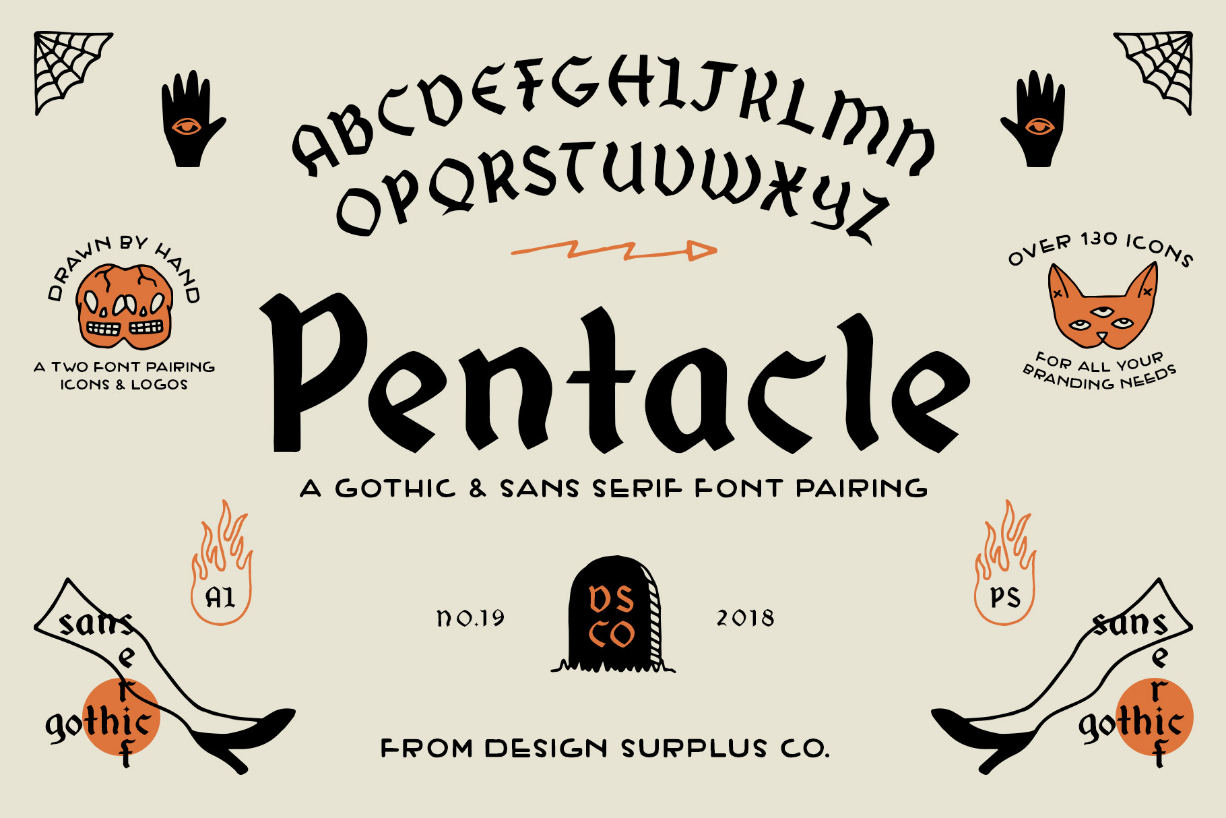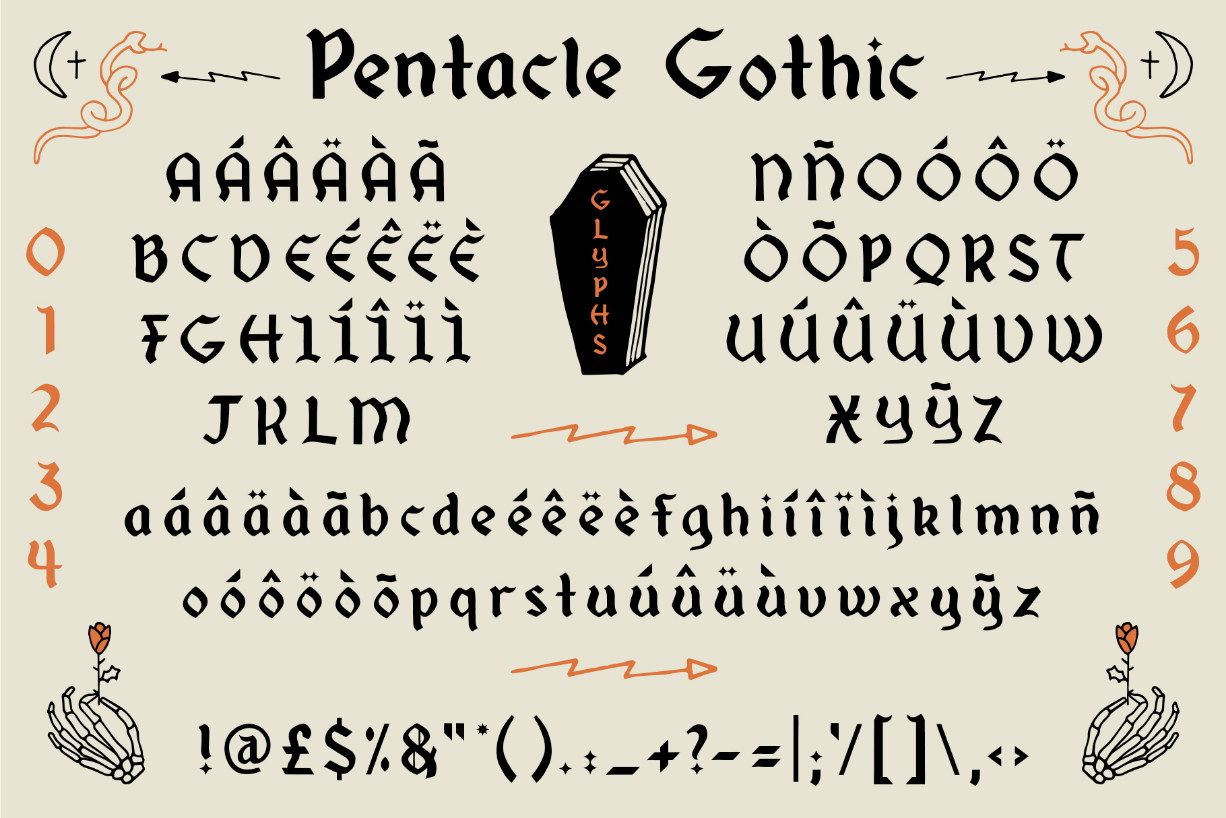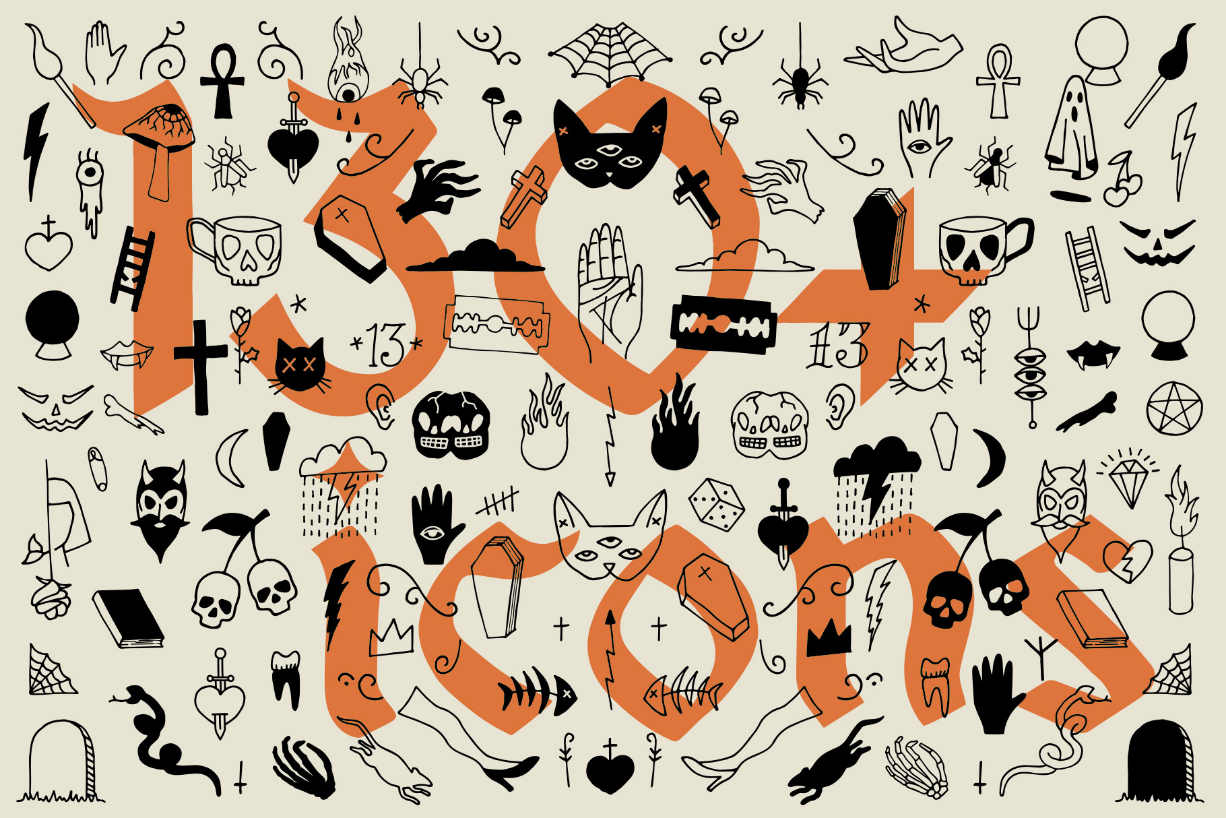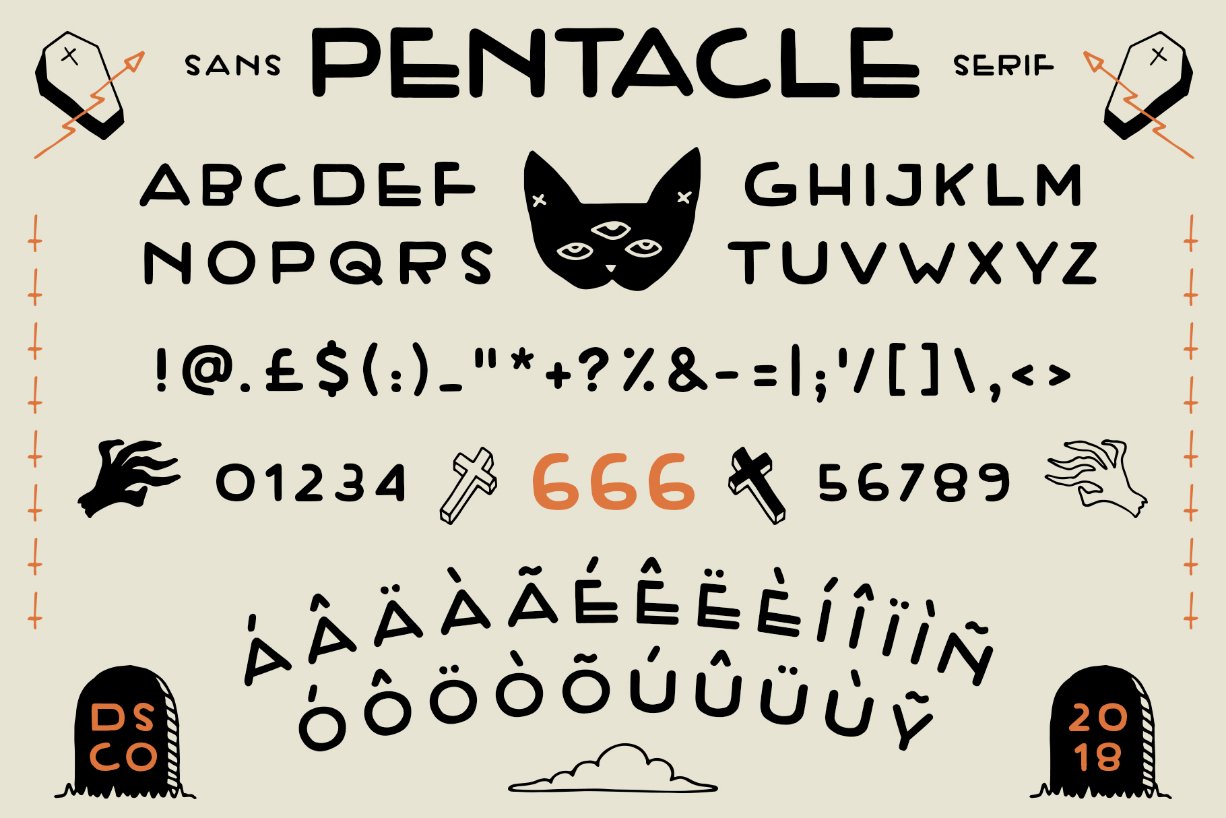
About Pentacle Font
Pentacle is a cool, bold and gothic looking duo font (blackletter and sans serif). It will look stunning on any poster, flyer or print.